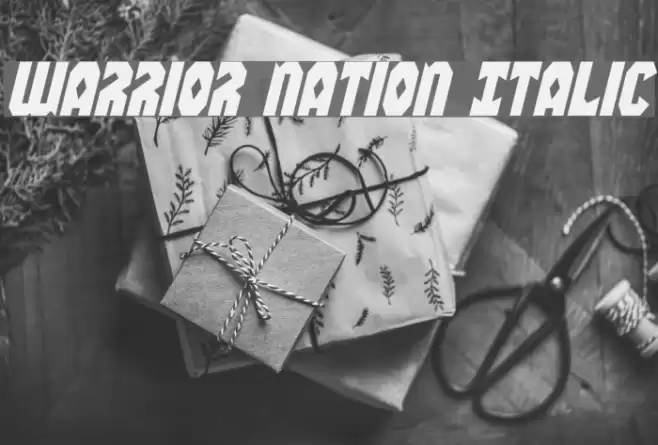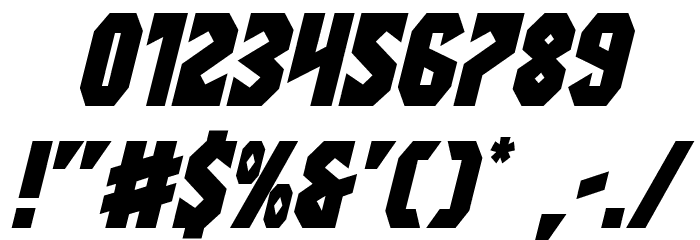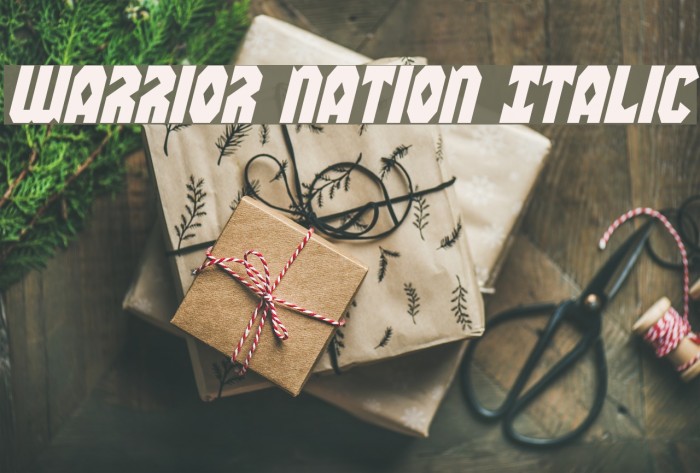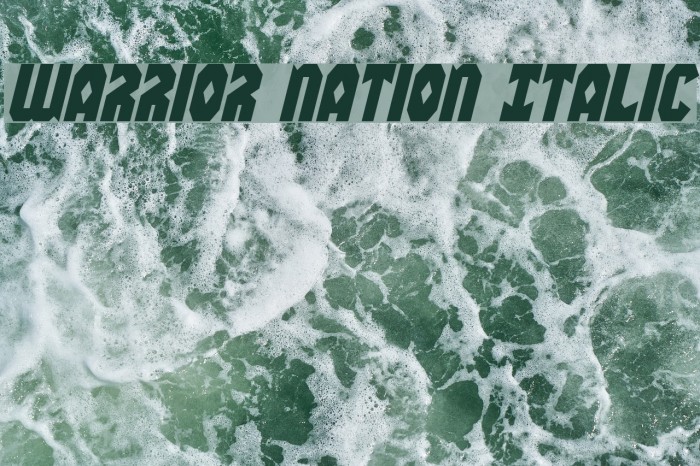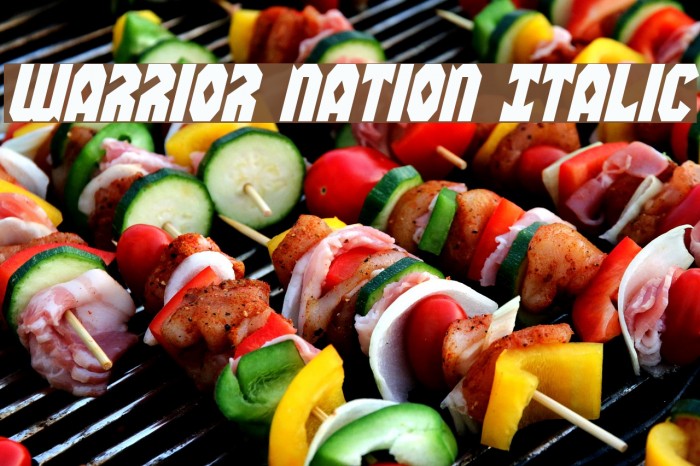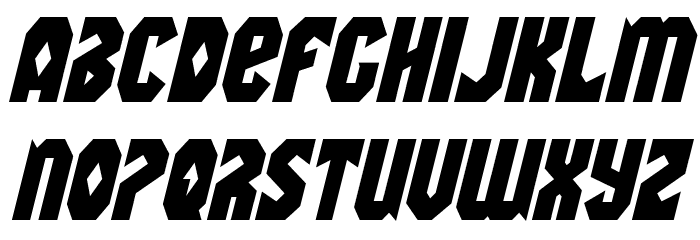
Warrior Nation Italic Font
Warrior Nation Italic Description
This font features a bold and dynamic design with angular, geometric shapes that convey a sense of strength and movement. The characters are sharply cut with a distinct italic slant, enhancing the aggressive and energetic feel. The uppercase and lowercase letters maintain a consistent style, with the uppercase being more prominent and commanding. The numbers and special characters follow the same bold and angular design, ensuring uniformity across all glyphs. This font is ideal for projects that require a strong, impactful presence.
A bold, angular, and italic font with a dynamic and energetic style from Uncategorized fonts.
- Proposed Projects: Perfect for sports team branding, action movie posters, video game titles, and any project needing a bold, impactful typeface.